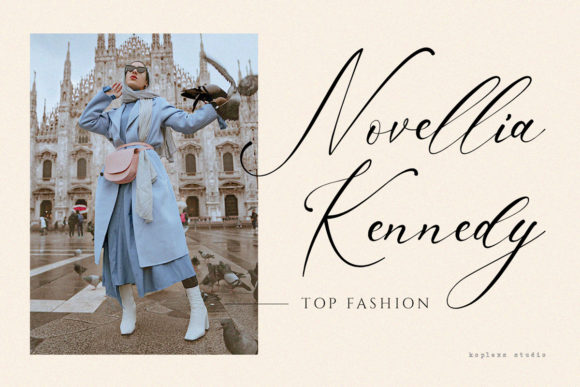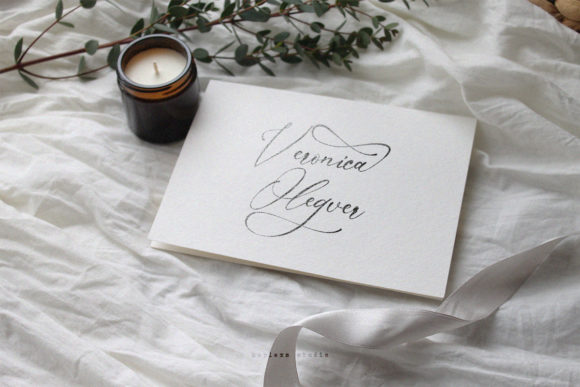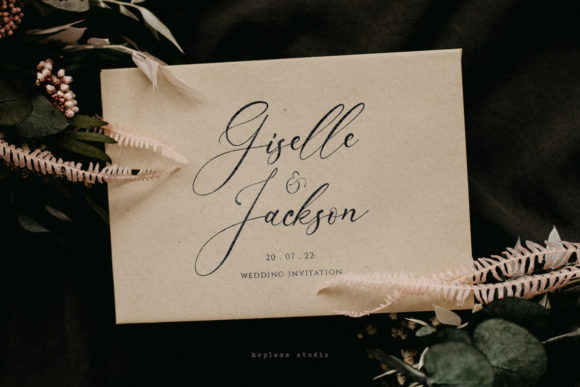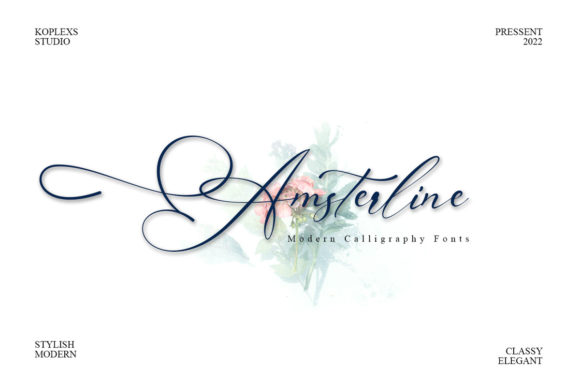
Amsterline Font: Elegant Script Calligraphy for Wedding & Logo Design
About the Amsterline Font
Elevate your designs with Amsterline Font, a font that combines sophistication with readability. Amsterline is a slim and delicate script font. It is suitable for book texts, documentation, business reports, business correspondence, magazines, newspapers, posters, advertisements, multimedia, and corporate design.
Amsterline’s delicate nature makes it ideal for projects requiring a touch of elegance, such as wedding invitations, stationery, or logos for brands emphasizing sophistication. It excels in headlines, short text blocks, and even short-form body copy where readability isn’t compromised by its thin strokes. However, avoid using it for large blocks of body text or UI elements where legibility is paramount.
Pair Amsterline with a clean sans-serif like Lato for a modern contrast, or a classic serif like Garamond for a more traditional feel. A geometric sans-serif would also provide a striking juxtaposition, enhancing Amsterline’s delicate curves. Avoid pairing it with other script fonts to prevent visual clutter.
Its overall personality is sophisticated and refined, lending itself well to brands focused on luxury, fashion, or the arts. The font’s subtle elegance makes it a strong choice for creating a sense of refined quality.
Amsterline Font Usage Examples
Amsterline Font Example